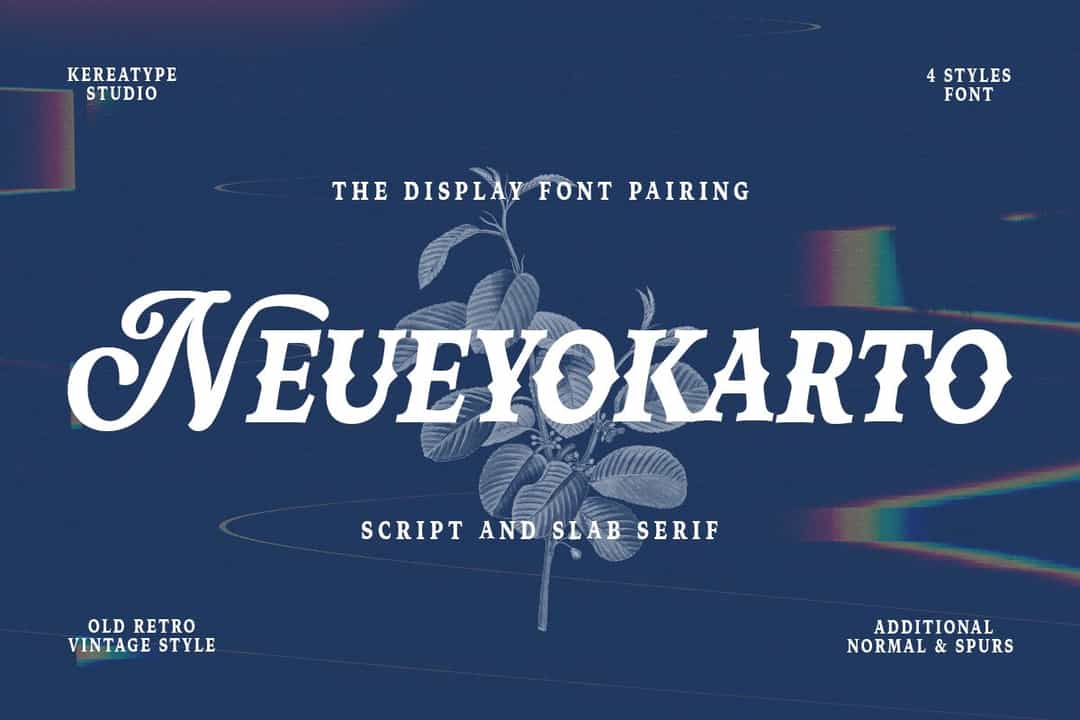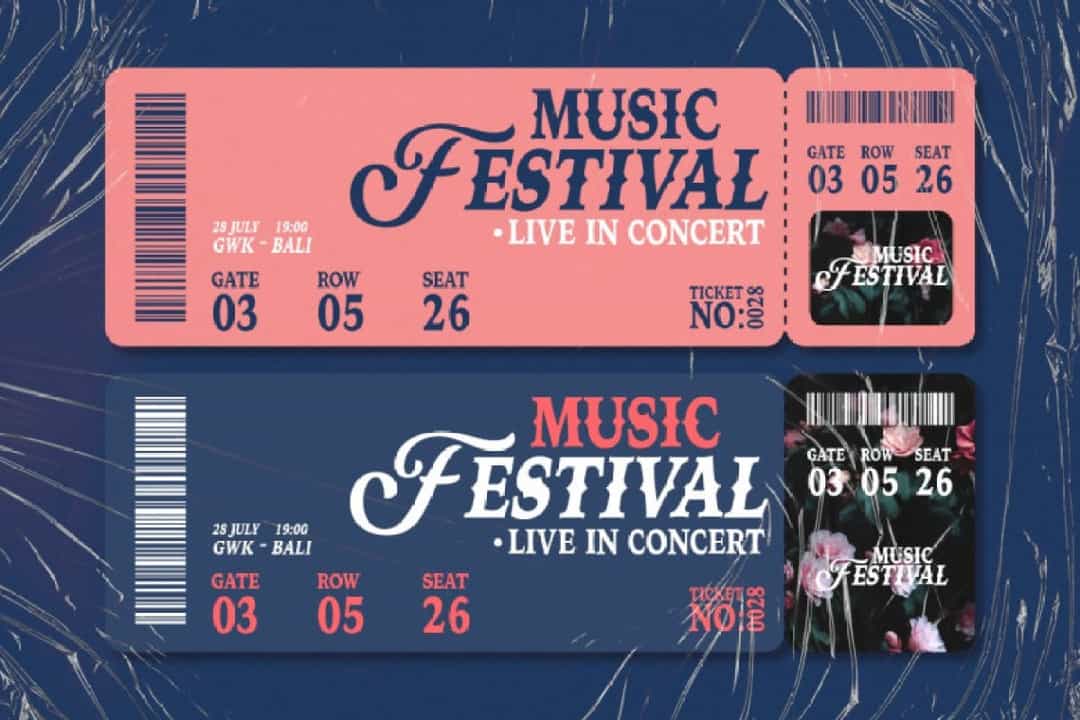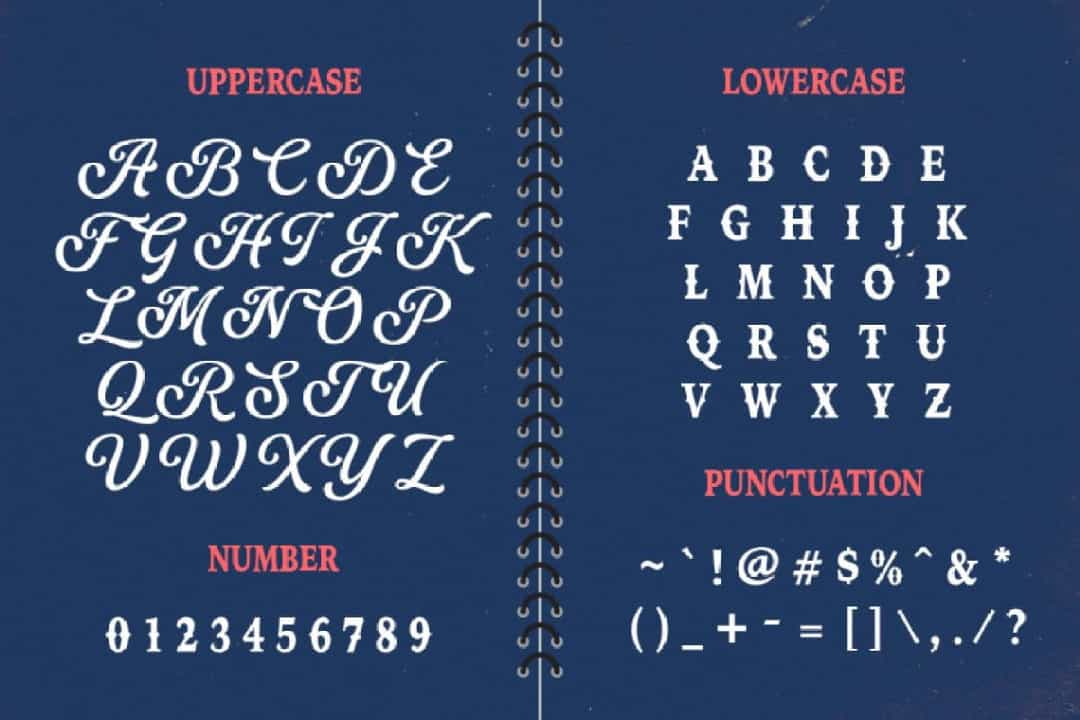
Neue Yokarto, our latest vintage-inspired font combination, brings script and Slab Serif styles together with Spurs for added character, in addition to having normal italic styles. Inspired by vintage signage, logos, badges and other graphic designs from earlier decades.